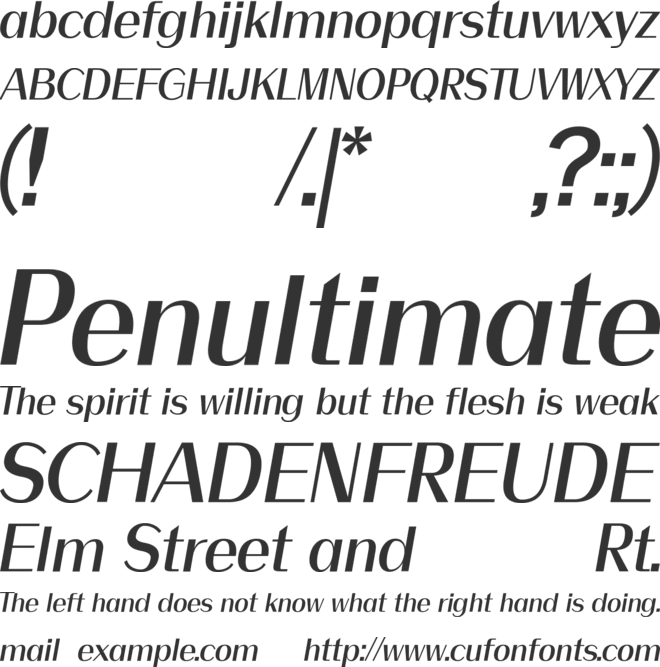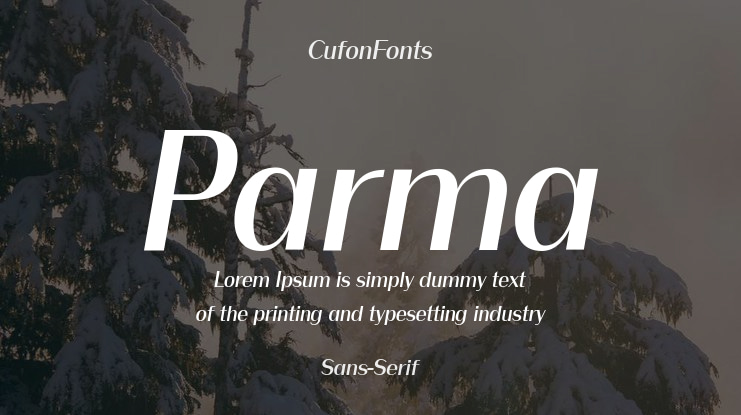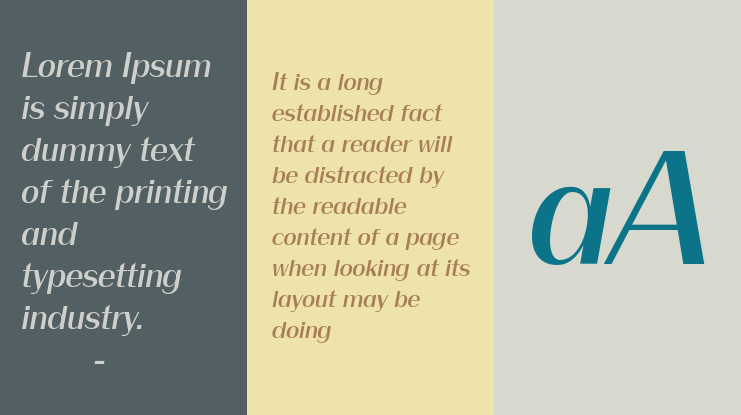
Parma Font Family
🎨 Font Name: PARMA by Minimalist Art Studio
🎨 Font Description: PARMA is an elegant sans serif with soft folds and modern clarity, perfect for fashion, branding, and editorial serenity.
βœ” Alternates, stylistic sets & ligatures